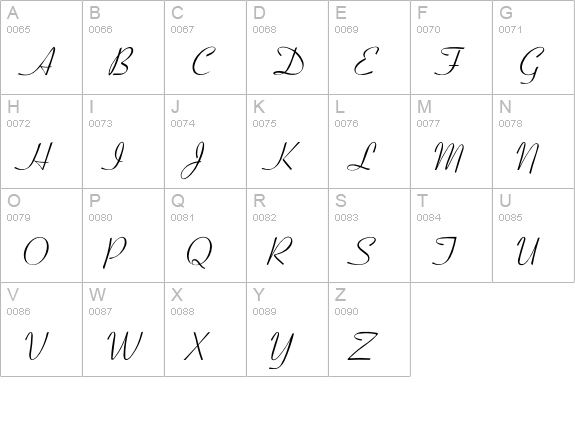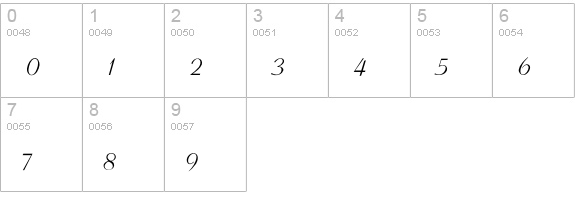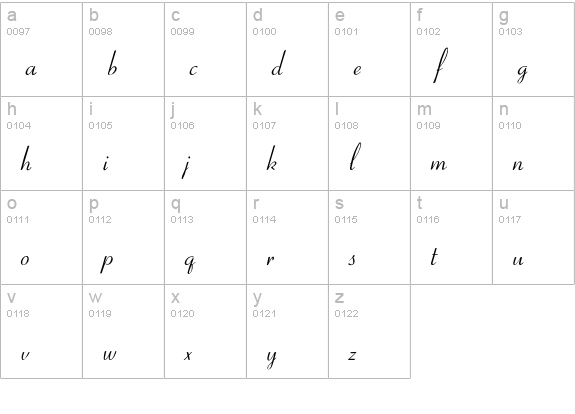
Cornet Font Details
Cornet font is a versatile and stylish typeface that exudes elegance and sophistication. With its sleek lines and modern appeal, Cornet is perfect for a wide range of design projects, from branding to editorial layouts. This font features a unique blend of classic and contemporary elements, making it a standout choice for any creative project. What sets Cornet font apart is not only its aesthetic appeal but also its accessibility. This font is available for free download at FontsMarket.com, allowing designers and creatives to easily incorporate it into their work without any financial barriers. Whether you're designing a logo, website, or print materials, Cornet font offers a timeless and refined look that will elevate your designs to the next level. Download Cornet font today from FontsMarket.com and discover the endless possibilities it brings to your design projects.